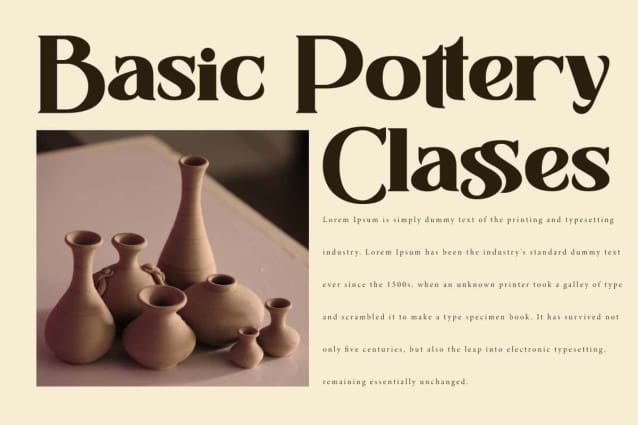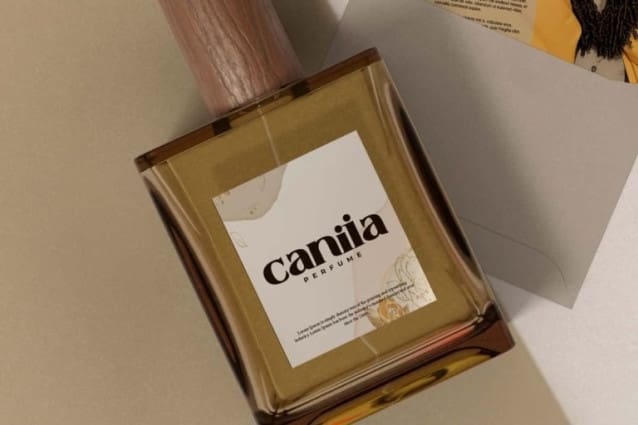
Classicly Font
Classicly Font is a classic serif display font that has a bold letter composition appearance equipped with ligatures that add artistic value to the font. Inspired by retro typefaces with meticulous craftsmanship. This typeface is perfect for those who want a vintage aesthetic so it’s perfect for blogs, brand logo, card designs, headers, invitation, label, stationery, title, website and much more.
Classicly Font is a serif font that has a vintage feel with a touch of modernization. It looks stunning at screen sizes and is easy to read at text sizes. It would be perfect for cafeteria, clothing brand, event organizer, fashion, graphic designs, florist, handicraft, homeware, photography, pottery, restaurant, wedding, and more.